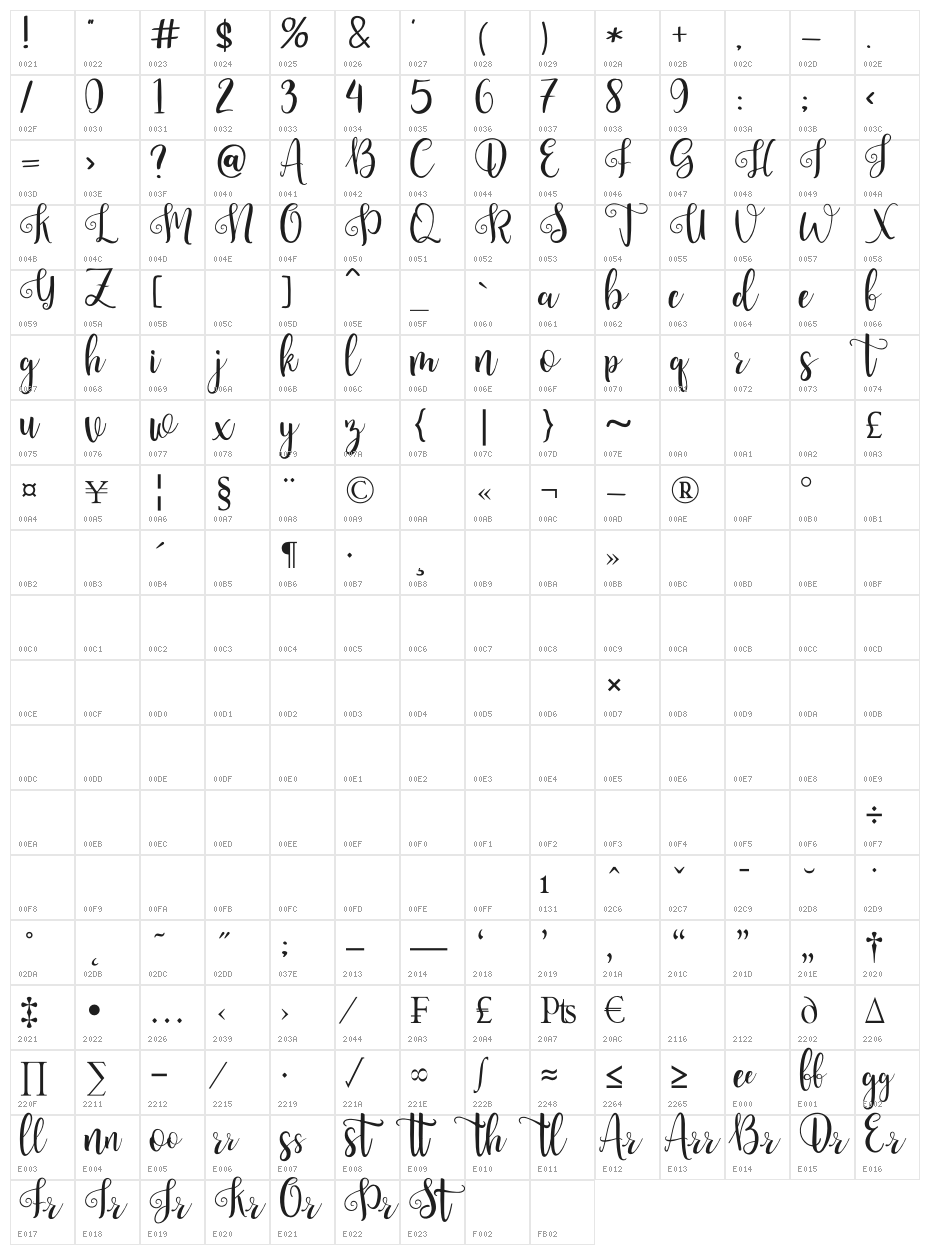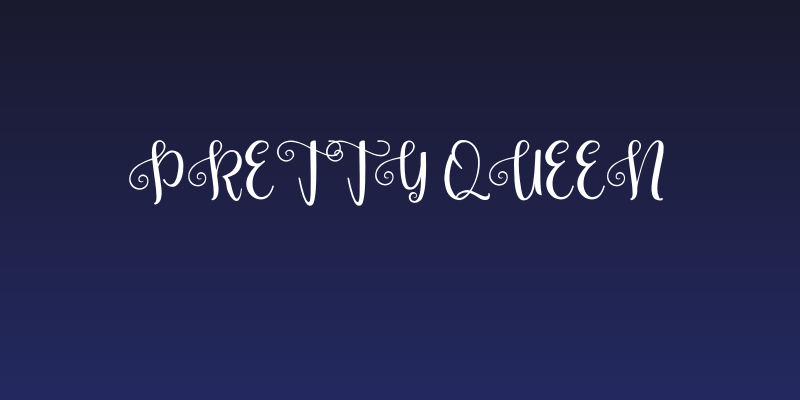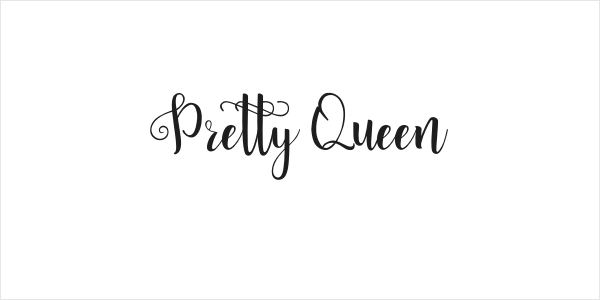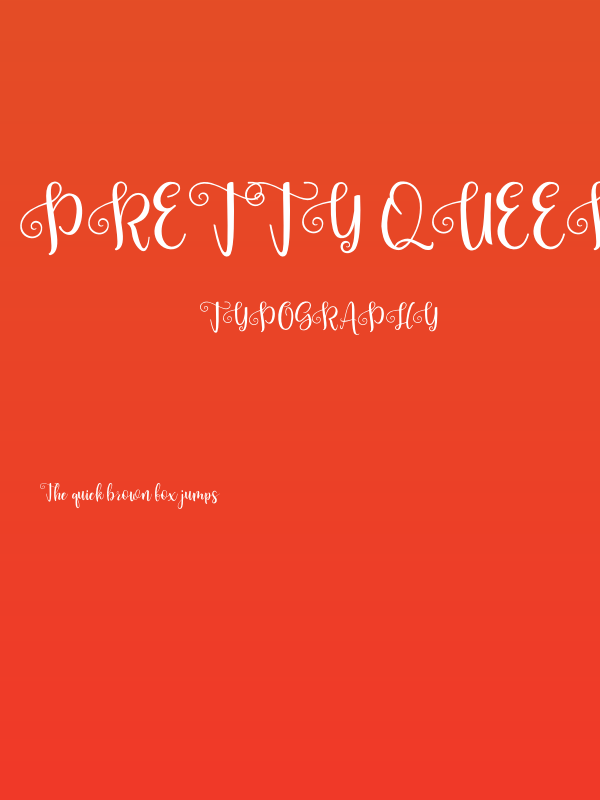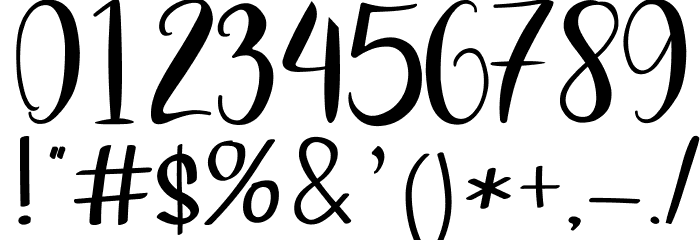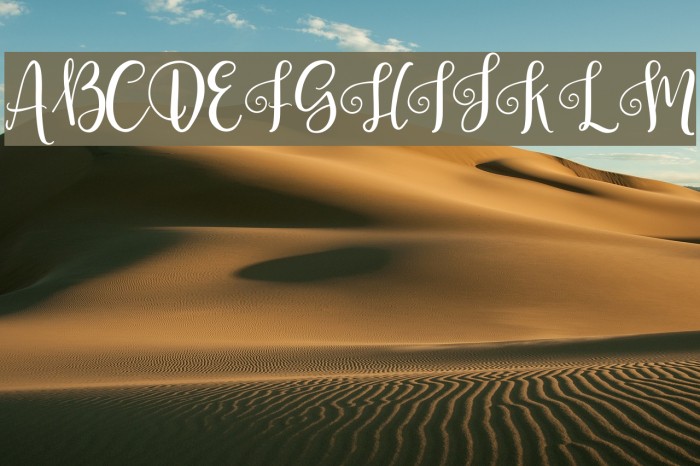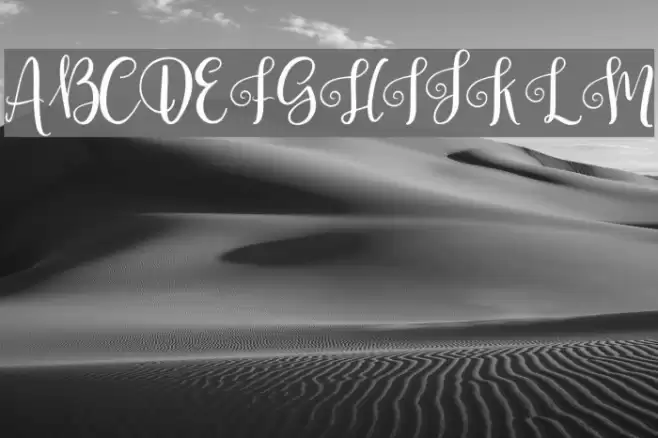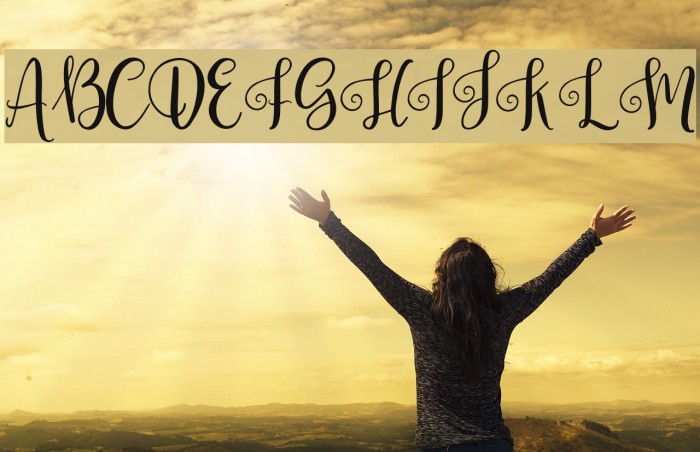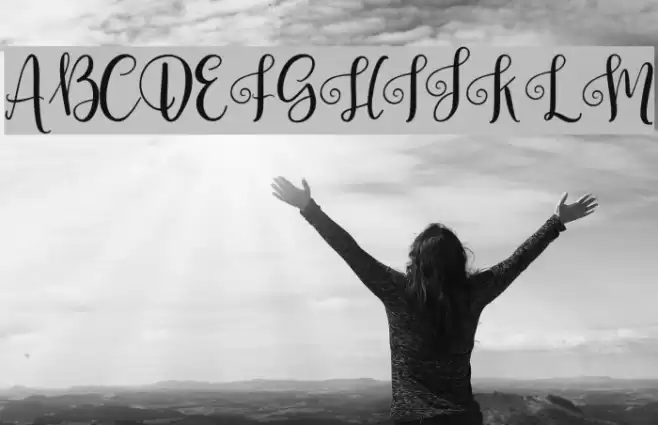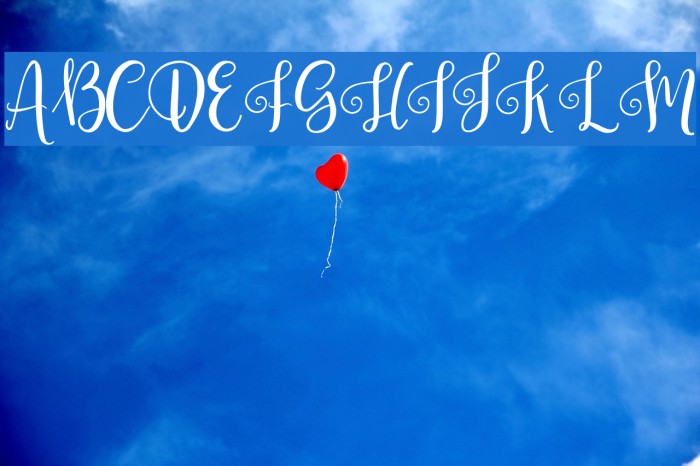
Pretty Queen Font
Pretty Queen Description
This font features an elegant and flowing script style, characterized by its ornate and decorative swirls. The uppercase letters are particularly elaborate, with intricate loops and flourishes that give a sense of sophistication and grace. The lowercase letters maintain a consistent flow, with smooth curves and a slightly more restrained design compared to the uppercase. The numerals are bold and clear, maintaining the decorative style without sacrificing readability. Special characters are thoughtfully designed to match the overall aesthetic, making this font suitable for artistic and creative projects.
| Use Case | Logos, Headlines, Invitations |
| Proposed Projects | Ideal for wedding invitations, greeting cards, branding, and decorative signage. |